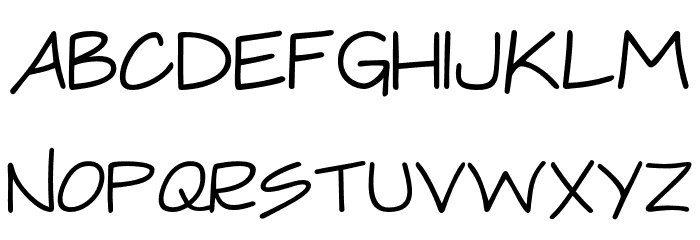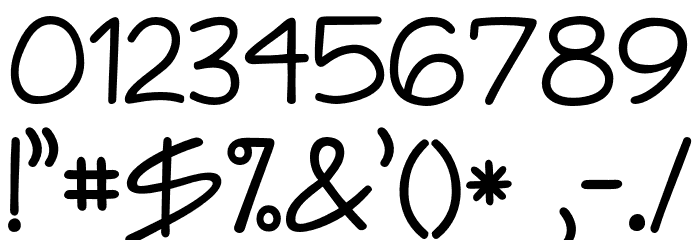
KG Architecturally Artistic Font
A playful, handwritten font with a casual and artistic style, featuring slightly irregular strokes and a friendly appearance.
Playful handwritten font with an artistic touch.
- Proposed Projects: Greeting cards, children's books, casual branding.
- Overall Style: Casual, Artistic
- Use Case: Headlines, Informal text, Creative projects